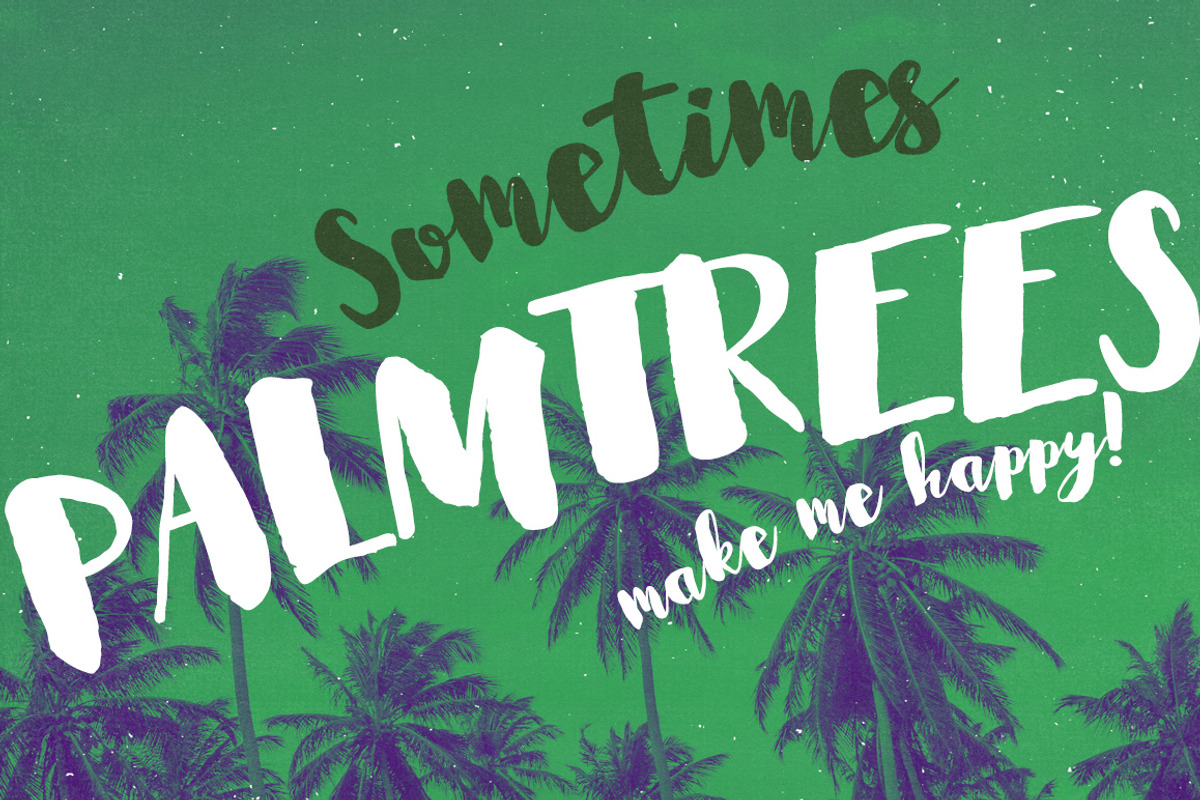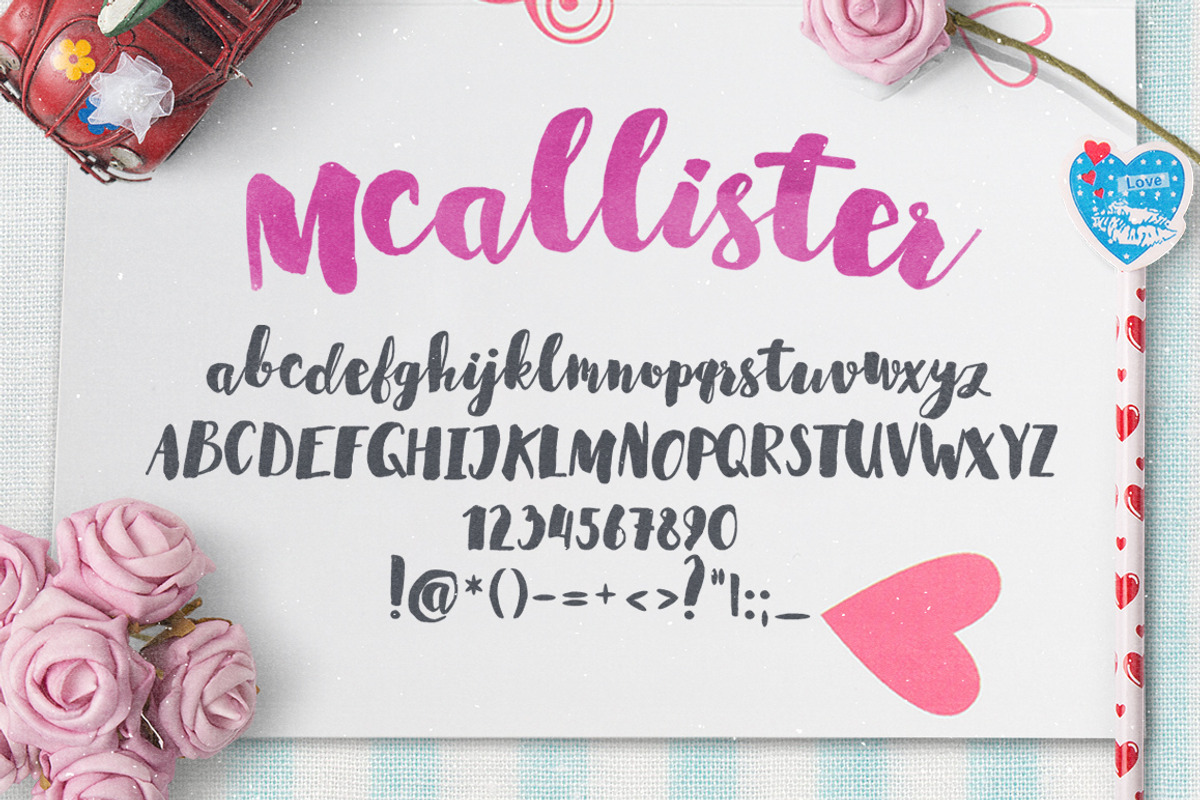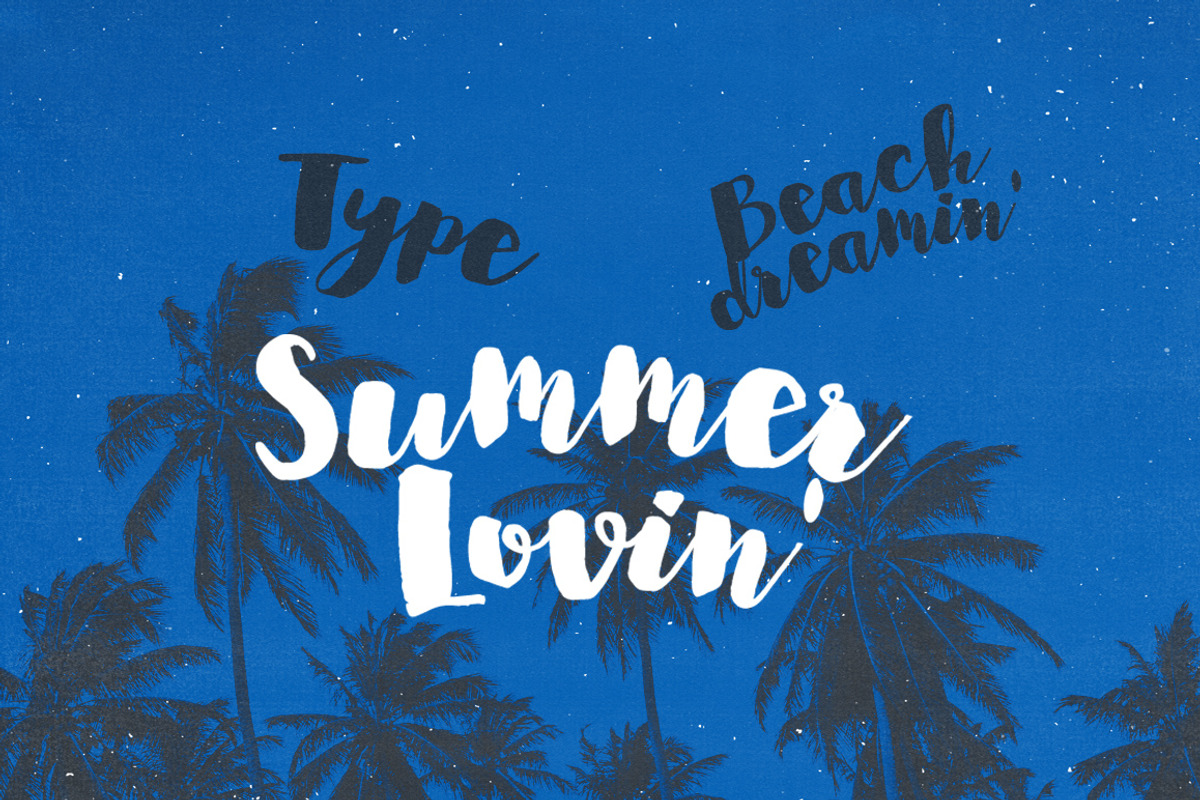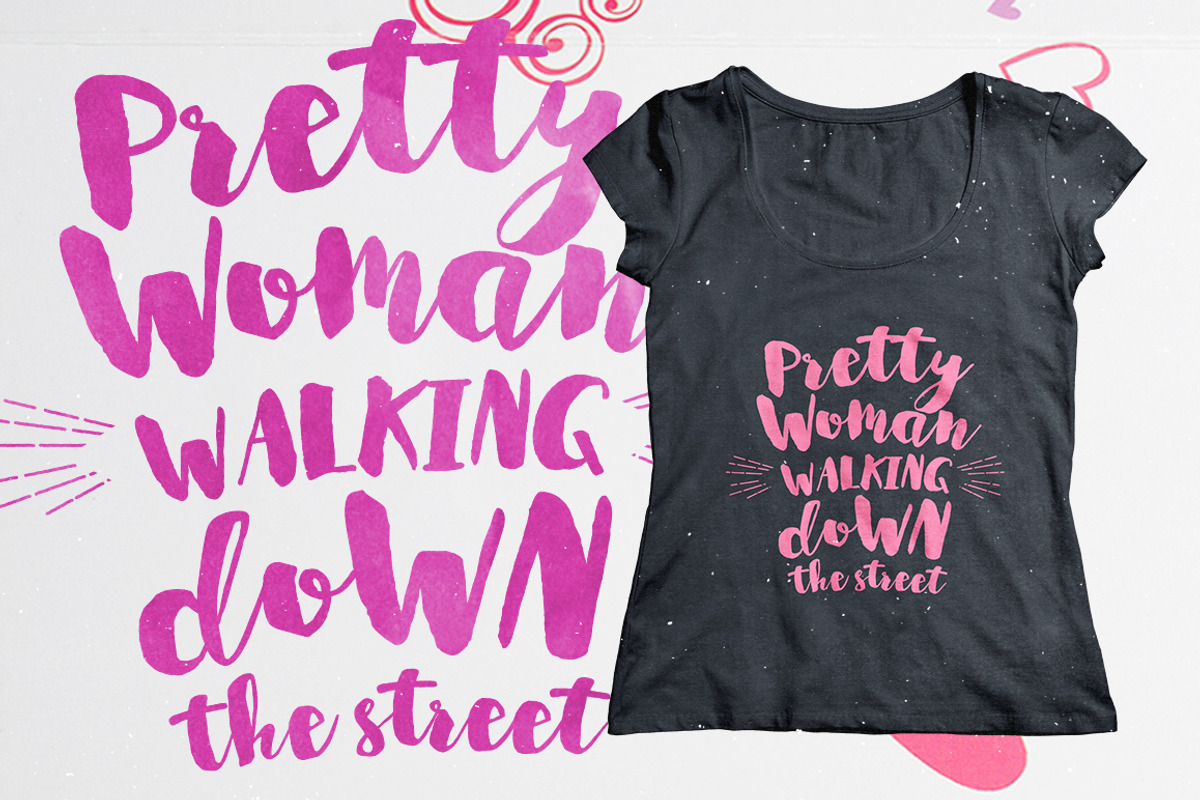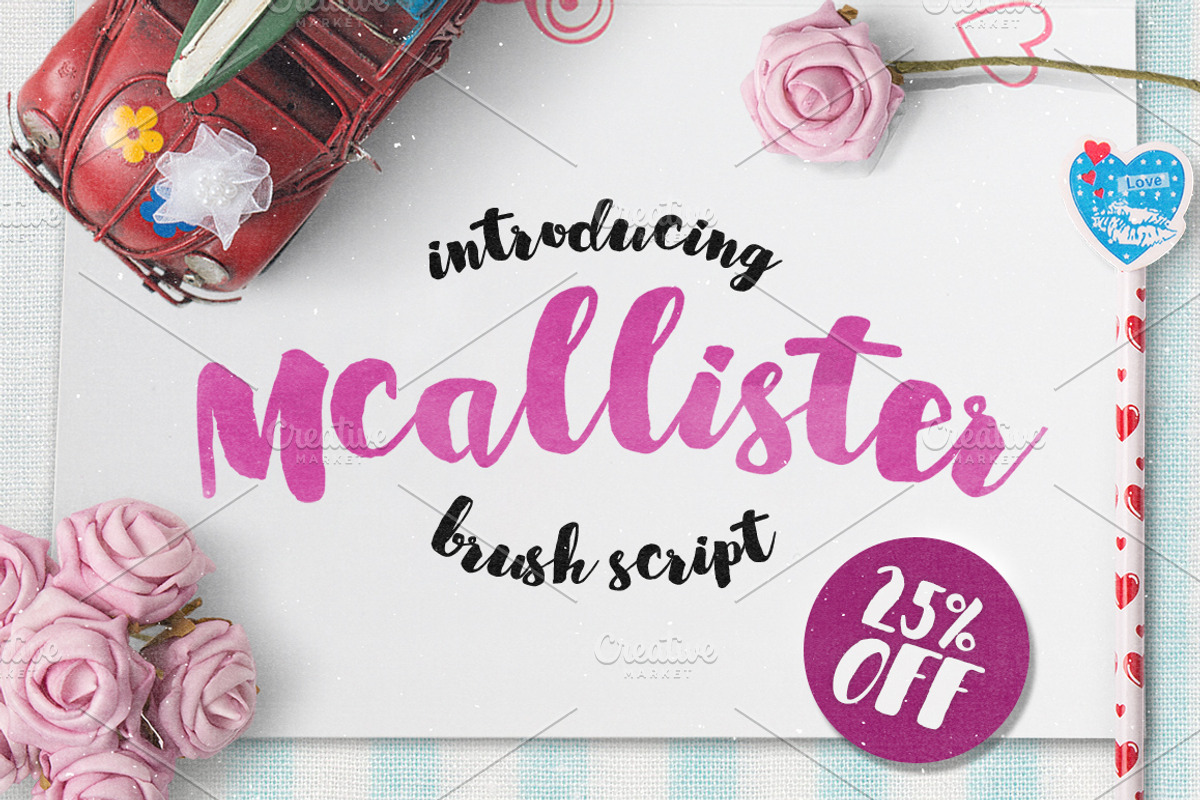
Mcallister is a handmade, rough edged yet soft Brush Script font that delivers character and charisma in oodles! Perfect for any sort of Typography or Lettering projects, it makes the perfect addition to your font collection by adding a dash of personality to each and every glyph!
There are plans in the future to add multilingual support and more character sets, but for the time being Mcallister Brush Script comes in the standard Latin Characterset! :)